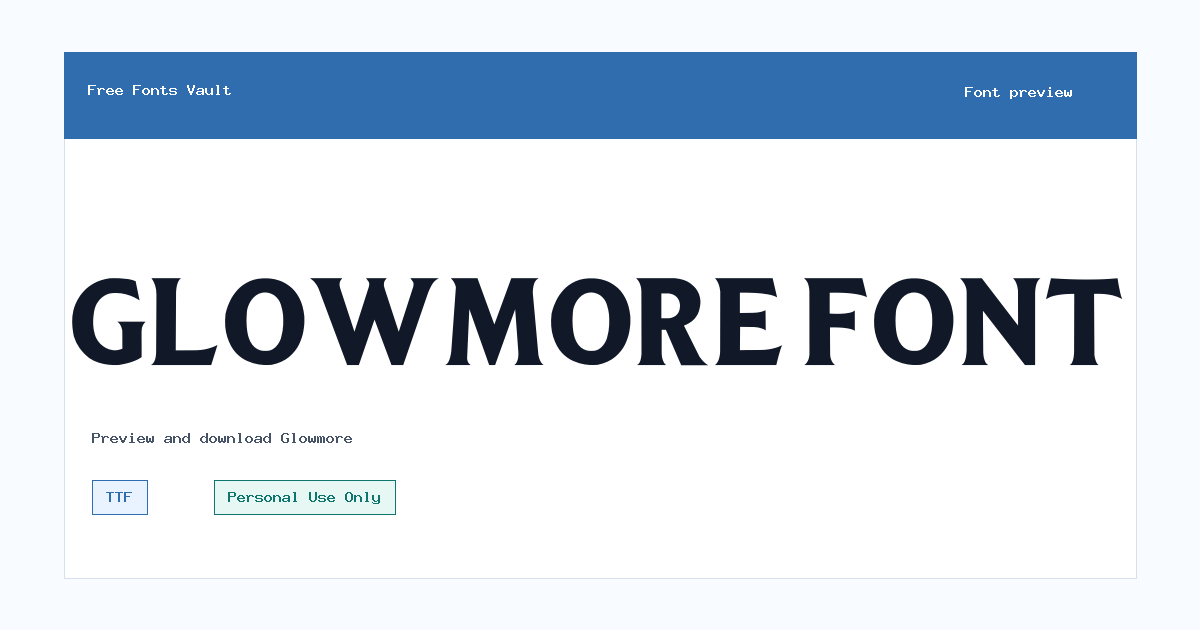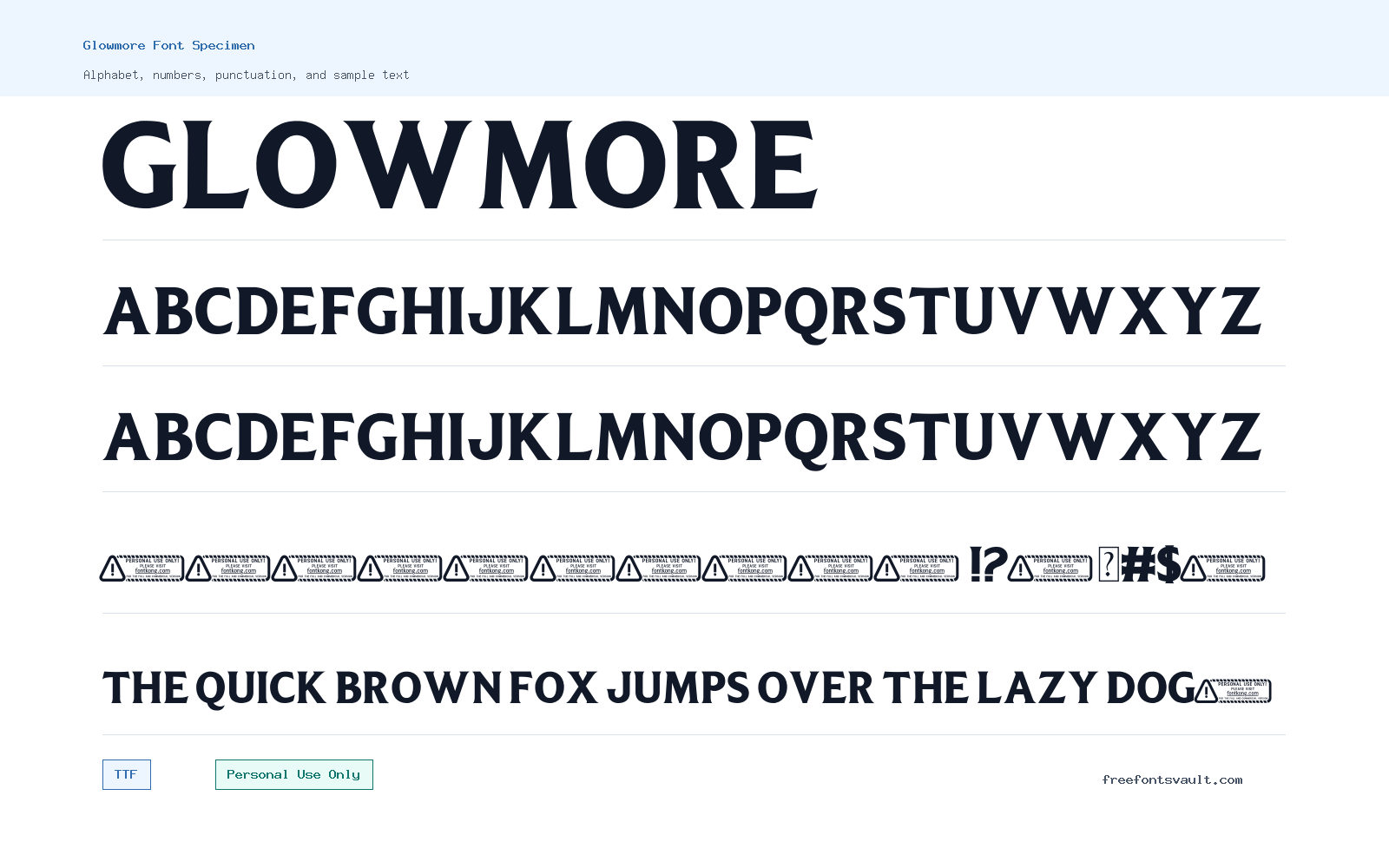
Glowmore
Glowmore Font
Glowmore is a serif display font from Kong Font with a polished, decorative look made for short, eye-catching text. Use the preview tool to test your own words before downloading, especially if you plan to use it for titles, logo drafts, posters, or brand-style mockups.
About Glowmore Font
Glowmore sits in the serif category and works best when it has room to show its shape. It is not the kind of font you choose for long paragraphs or small interface text. Its value is in display use: a product name, an invitation heading, a poster line, a magazine-style title, or a few words on a social graphic. The regular TTF file makes it easy to install on most design systems, so you can try it in Photoshop, Illustrator, Canva, Figma, Word, or any app that accepts TrueType fonts.
Glowmore is also a good candidate for posters and web mockups where the headline needs to feel more refined than a plain system serif. Try it in large sizes first, then reduce it slowly to see where the details start to lose clarity. For web design comps, use it for hero headings, editorial banners, promo blocks, or landing-page mockups rather than body copy. If you are creating a real live site for a business, confirm the web and commercial license terms first.
Pairing Glowmore is mostly about restraint. A clean sans serif can keep the design readable while Glowmore handles the attention-grabbing text. Use a simple grotesk or humanist sans for navigation, captions, and descriptions. If you pair it with another serif, choose one with a quieter texture so the page does not feel crowded. Avoid combining it with highly decorative scripts unless the layout is very short and carefully spaced.
• Serif display style suited to short titles, names, and headline text
• Personal poster designs and quote graphics
• Invitation headings and event-title mockups
• Logo concept exploration for non-commercial testing
• Packaging, label, and brand presentation mockups
• Editorial-style headings, magazine covers, and web hero text
• Social media graphics for personal projects
Use Glowmore at larger sizes where its serif details can stay clear. Test your real headline, logo name, or poster text in the preview box, then check spacing, punctuation, and legibility. Pair it with a simple sans serif for supporting text, and avoid using it for long paragraphs or small mobile body copy.